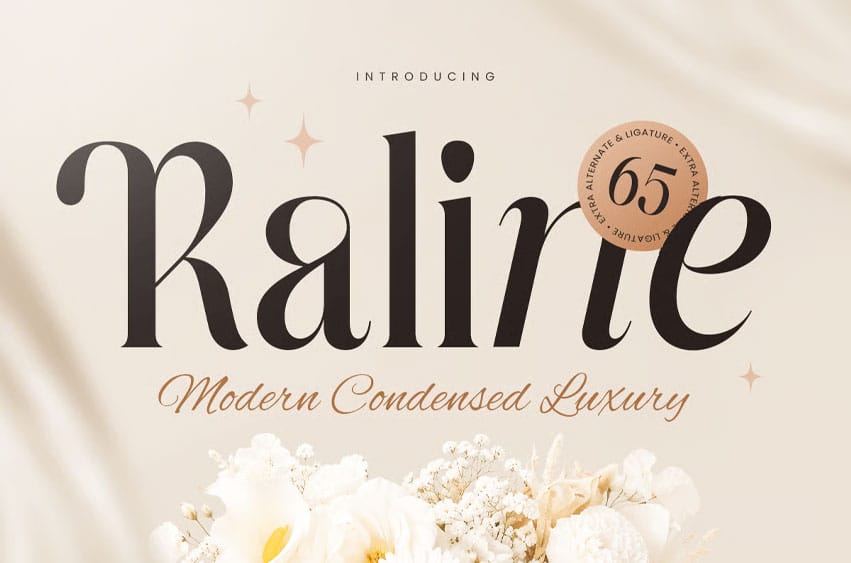
Raline Font is a Modern Condensed Luxury Font that combines elegance, sophistication, and contemporary style. Its refined condensed structure and stylish letterforms create a sleek and premium appearance, making it a perfect choice for modern luxury designs and it’s prepared with two styles: regular and italic version
Raline is perfect for all your favorite projects, including luxury logos, branding, fashion labels, beauty products, editorial designs, magazines, packaging, invitations, advertisements, social media posts, and more. Add it to your creative projects and create elegant, stylish, and memorable designs with Raline!